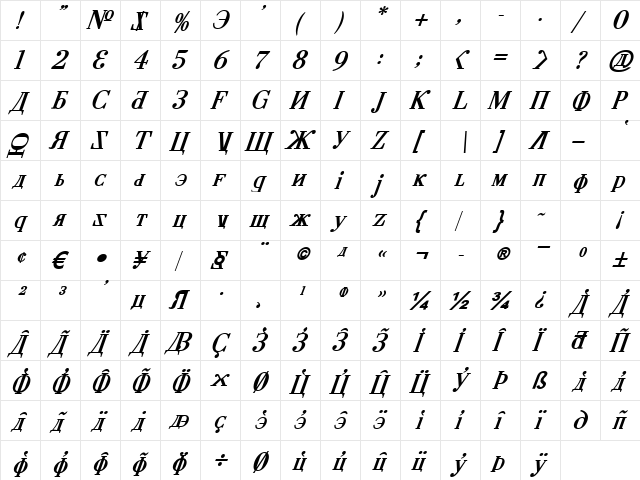
Cyberia Bold Italic Font Preview
Design Context for Cyberia Bold Italic Typeface
Cyberia Bold Italic channels digital-age aesthetics through its sharp, structured letterforms — ideal for brands that want to signal innovation. Its italic angle brings a sense of urgency and motion to the letterforms. The heavy weight commands attention and anchors typographic hierarchies.